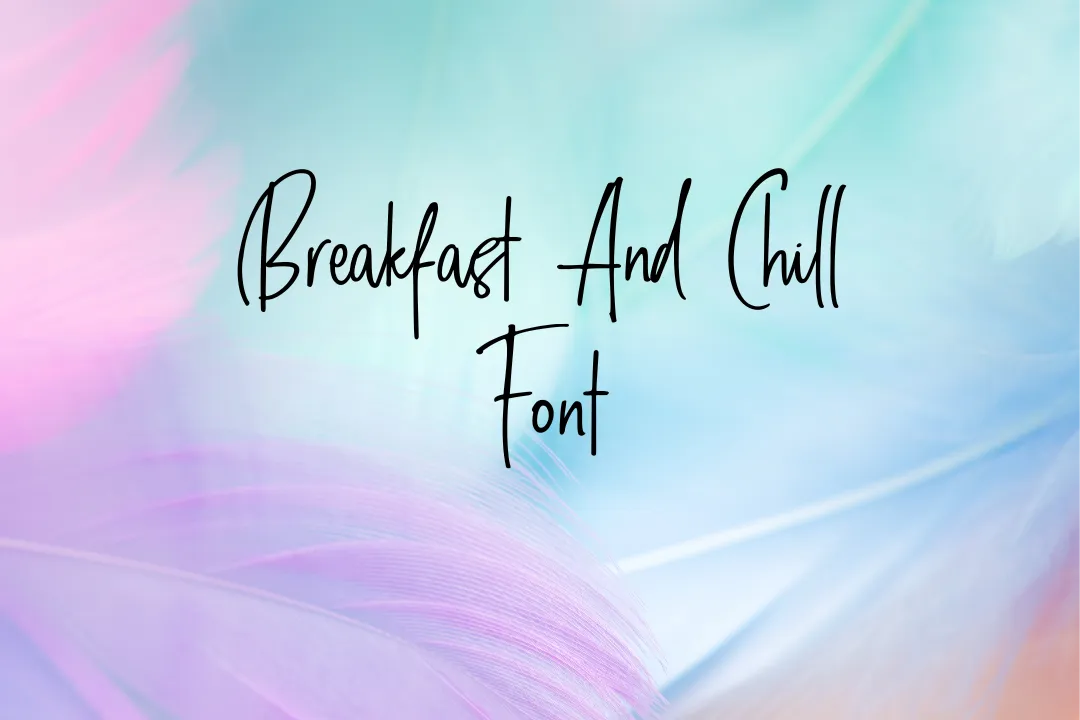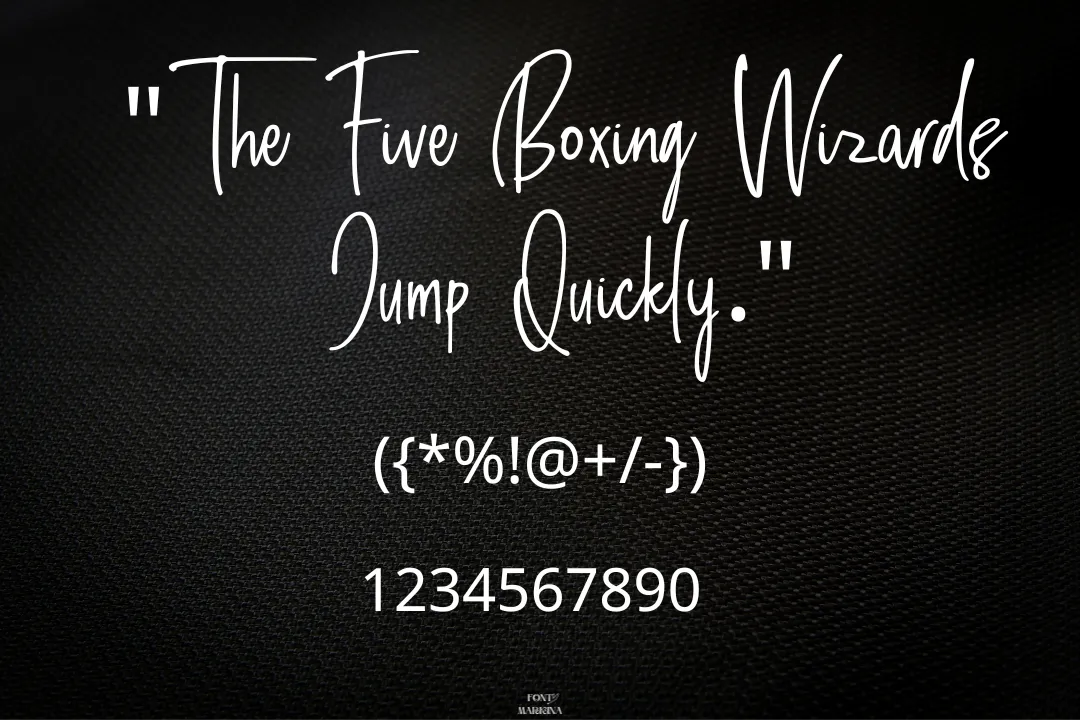
Breakfast and Chill Font
About Breakfast and Chill Font
The Breakfast and Chill font is a casual, handwritten font that is designed by Ian Irwanwismoyo to convey a relaxed and playful mood. The font features a playful and informal style with a mix of uppercase and lowercase letters, as well as numbers and punctuation. The letters have a slightly curved and flowing appearance, giving them a handwritten feel.
The online generator tool of the Breakfast and chill texture will assist you to convert all your normal alphabet structures into modern forms. This font is well-suited for use in social media posts, greeting cards, posters, and other creative projects where a casual, friendly tone is desired. This stunning texture will make perfect pair with the antro vectra font. It is not a widely used or well-known font and information about it might be limited.
It looks like someone wrote it by hand and is perfect for projects that need a relaxed and playful feel. This font can be used in things like social media posts, greeting cards, and posters. The letters are a bit curly and flowy, giving them a handwritten look. This font is not very well-known or commonly used.
Uses of Breakfast and Chill Font
The Breakfast and Chill typeface are ideal for projects that require a casual and lighthearted feel. This playful and informal font can be used to add personality and charm to a variety of creative projects. It’s a great choice for social media posts, where it can make your content stand out and draw the attention of your followers.
Many graphic designers utilize this gorgeous typeface with the mona handdrawn font. the font’s informal, handwritten style is also well-suited for use in greeting cards, where it can be used to create unique and personalized messages for birthdays, holidays, and other special occasions.
Additionally, this font is suitable for posters and other marketing materials where a relaxed and friendly tone is desired. Whether you’re looking to add some personality to your online presence or create charming and memorable designs, the Breakfast and Chill font is a great choice.
DesignerIan Irwanwismoyo
TypeHandwritten
What kind of font is Breakfast and chill font?
The Breakfast and Chill texture is a casual, handwritten font that is designed to convey a relaxed and playful mood.